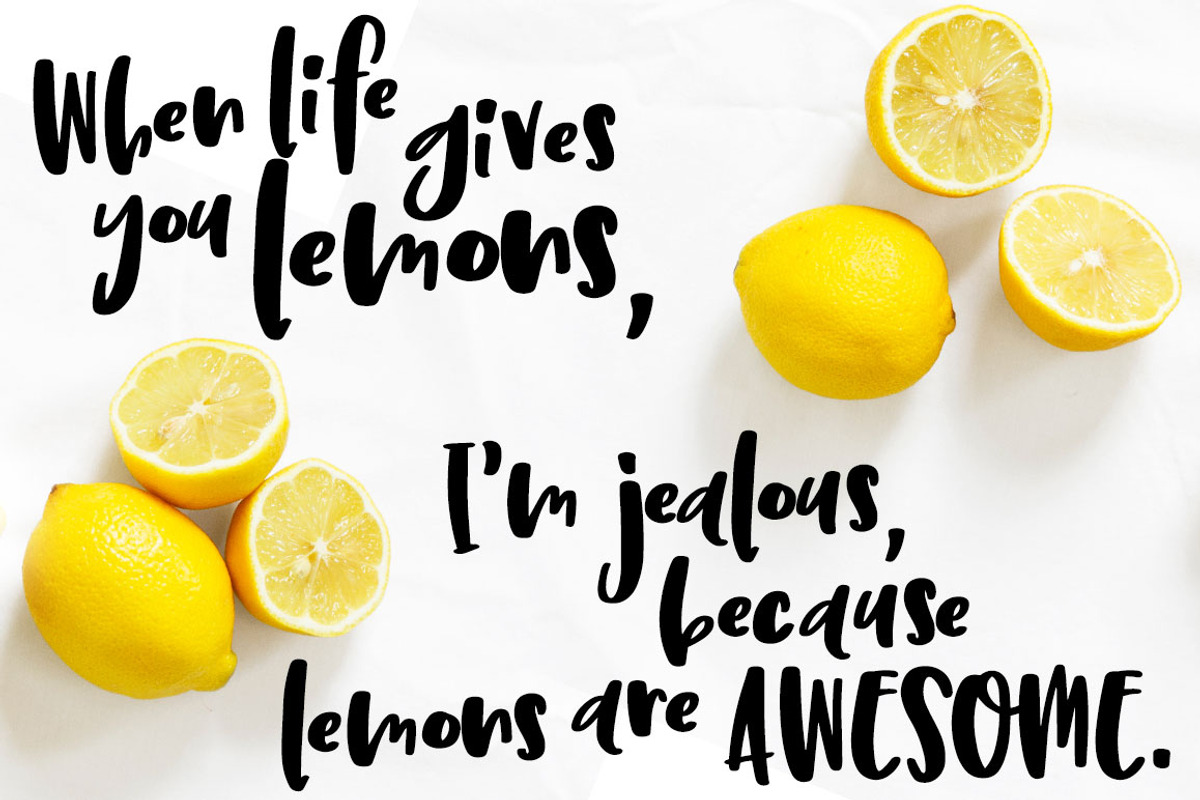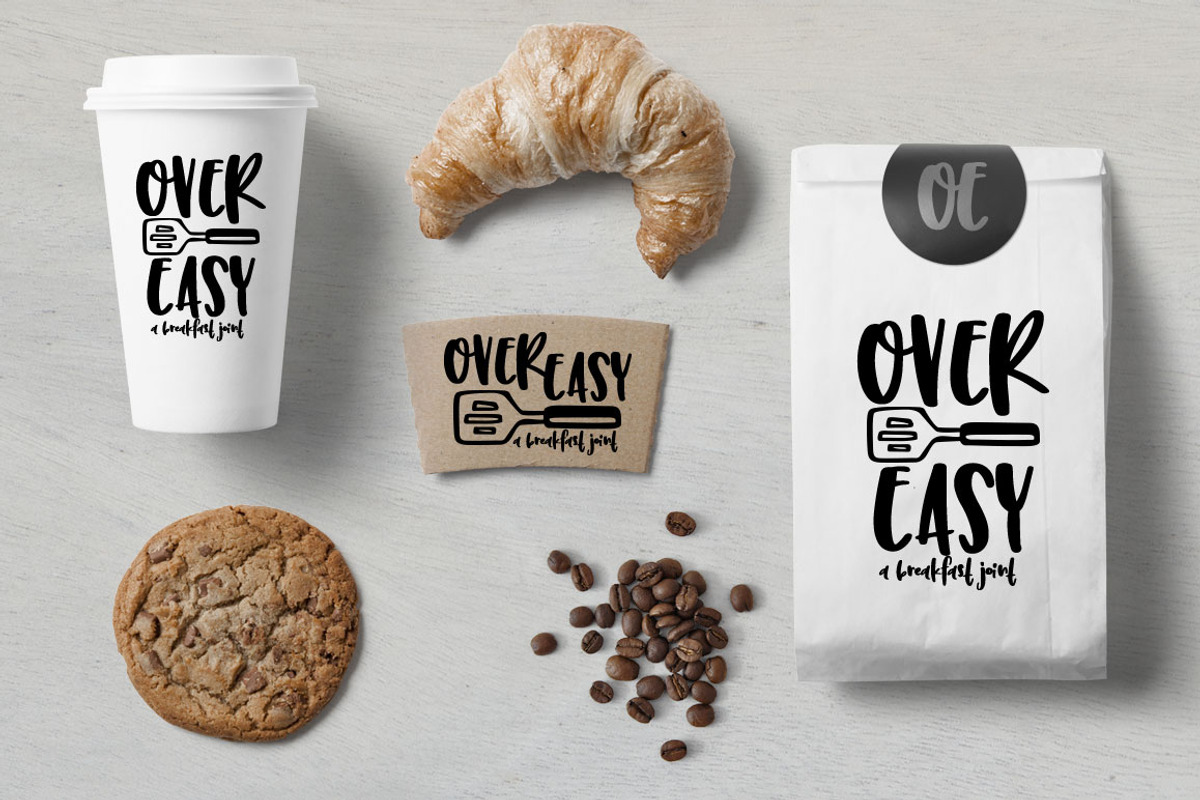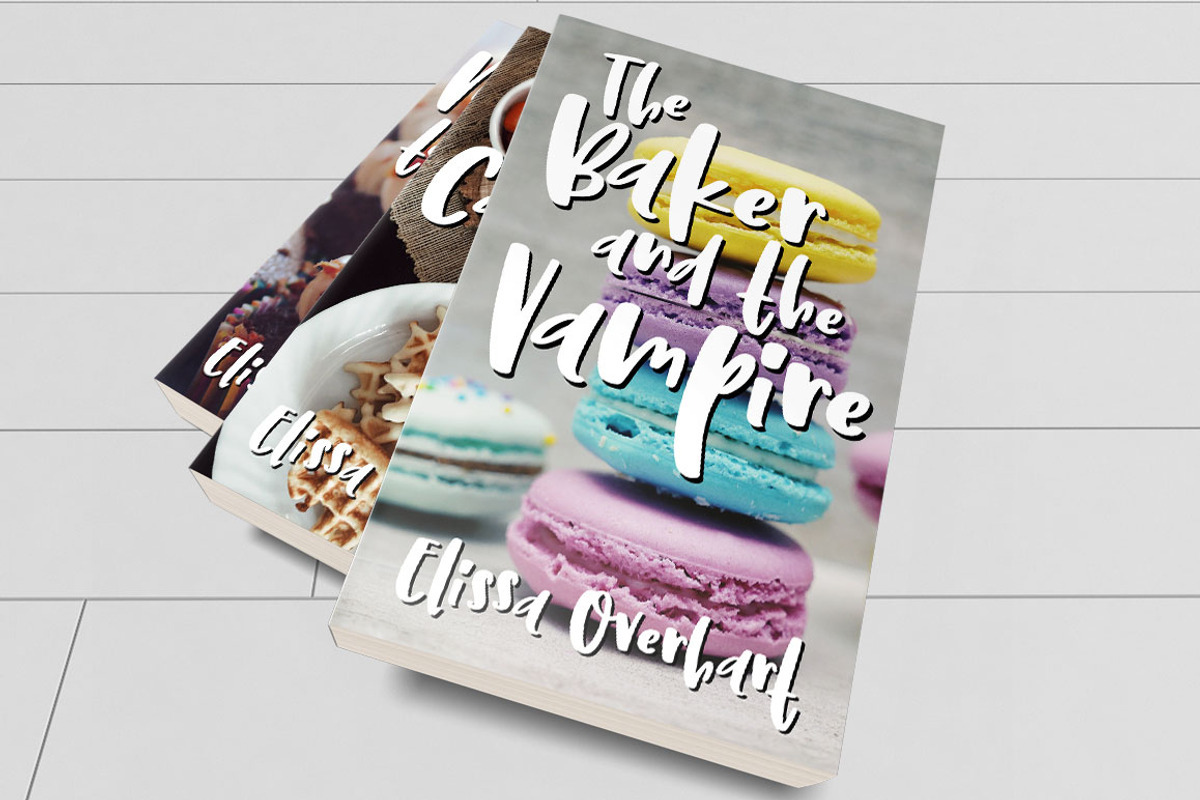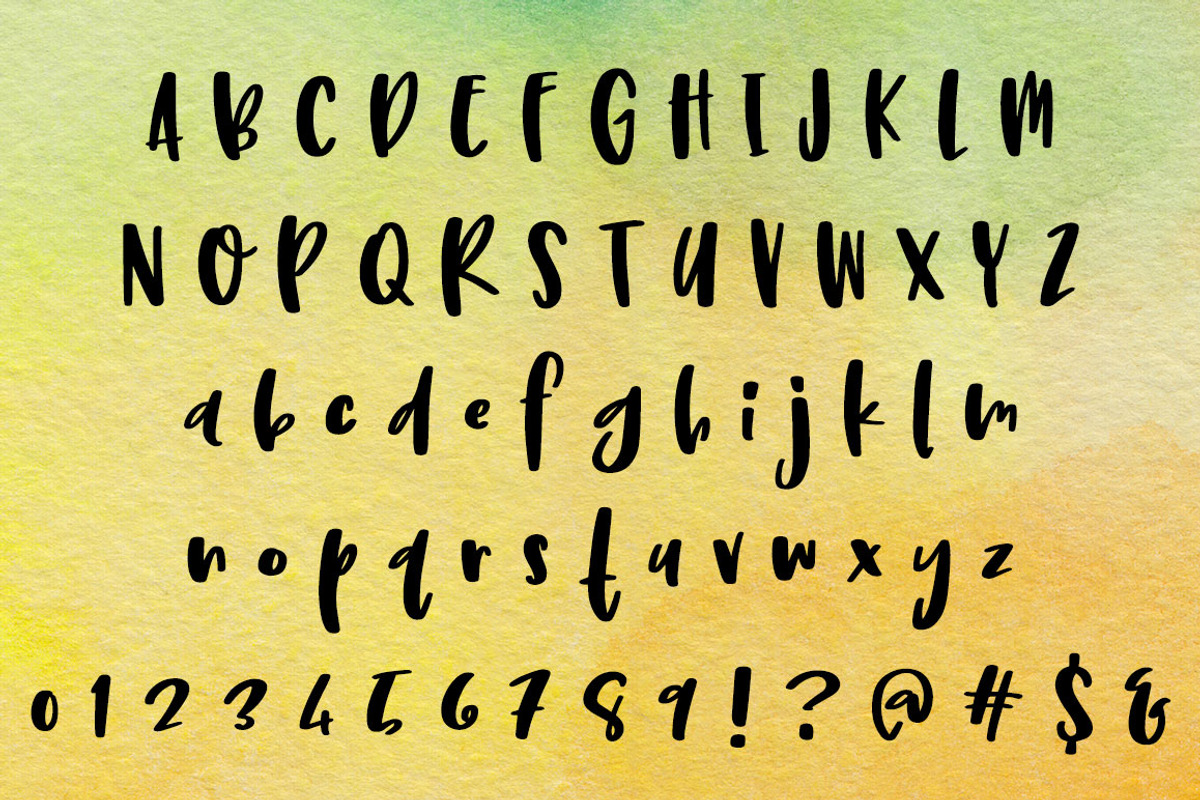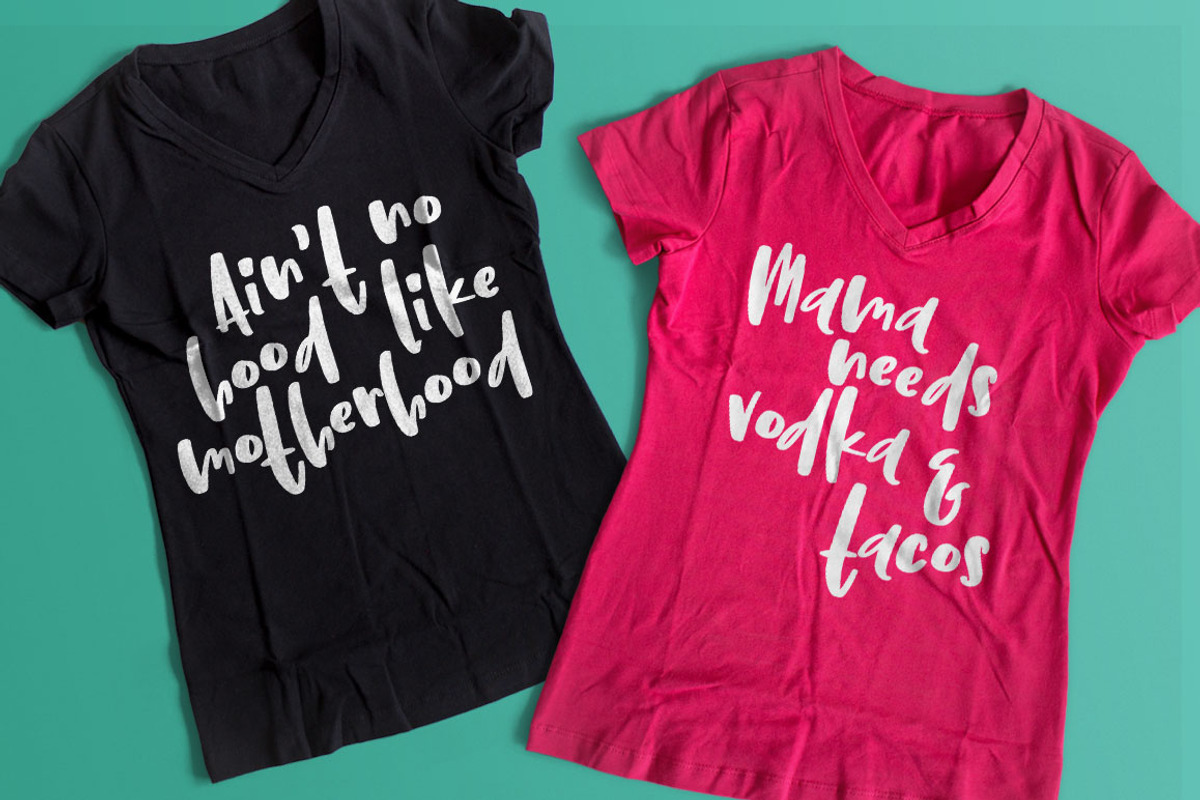
Limetta: a fun handwritten font
Limetta: a fun handwritten font by Missy Meyer is a font selected for branding, posters, packaging, typography.
- In addition to the basic alphabet and numbers, Limetta contains tons of punctuation, as well as over 350 Latin-1, Latin-A, Latin-B, and Lati
- Limetta includes: Uppercase A-Z and lowercase a-z Numbers 0-9 and plenty of punctuation Over 350 extended Latin characters for language supp
- With a fun bouncing baseline for the lowercase, a hot hand-lettered look to the uppercase, and heavy-to-heavier line weights, it's the perfe
Why Limetta: a fun handwritten font is worth a look
Limetta: a fun handwritten font by Missy Meyer fits naturally into Branding, posters, packaging, typography.